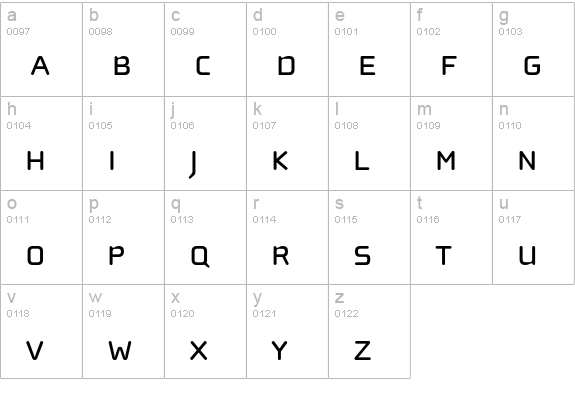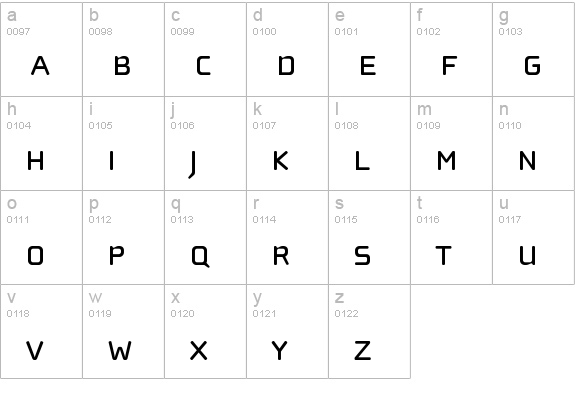
ChollaWideSmallCaps Font Details
ChollaWideSmallCaps font is a versatile and stylish typeface that exudes a unique charm and elegance. With its distinctive small caps design and wide letterforms, this font is perfect for adding a touch of sophistication to your projects. Whether you're working on a logo, branding materials, or any other design project, ChollaWideSmallCaps is sure to make a statement. And the best part? ChollaWideSmallCaps font is available for free download at FontsMarket.com. So go ahead and elevate your designs with this stunning font without any cost. Download it now and add a touch of class to your creations!